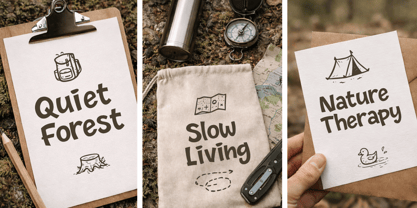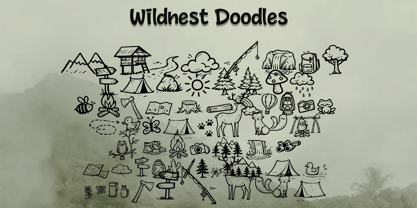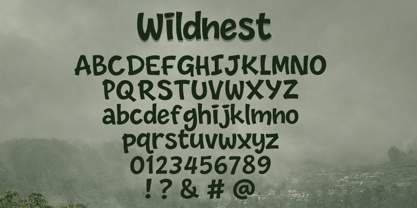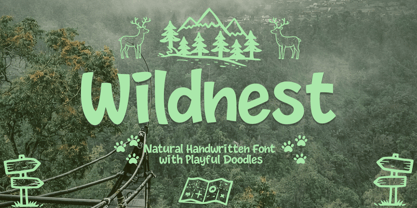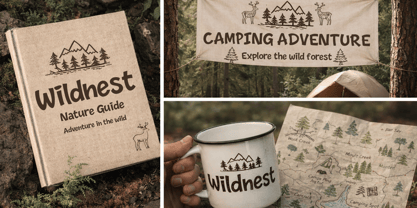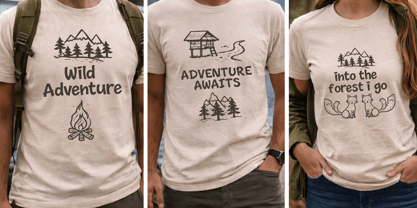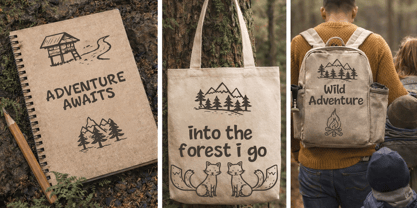
Wildnest
Die Schriftfamilie Wildnest wurde von Muhammad Zaini entworfen und von Cocodesign veröffentlicht. Wildnest enthält 2 Stile und Familienpaketoptionen. Mehr über diese Familie
Wildnest – Natural Handwritten Font with Playful Doodles Wildnest is a natural handwritten font inspired by outdoor adventures, forest landscapes, and peaceful moments in nature. Designed with smooth strokes and playful character, this font brings a warm, organic feeling that works perfectly for creative and lifestyle designs. This font includes charming doodle elements such as trees, mountains, animals, and nature symbols, making it ideal for branding, quotes, packaging, posters, apparel, social media, and outdoor-themed projects. Wildnest blends simplicity and creativity, offering a friendly and authentic look that enhances both digital and print designs.